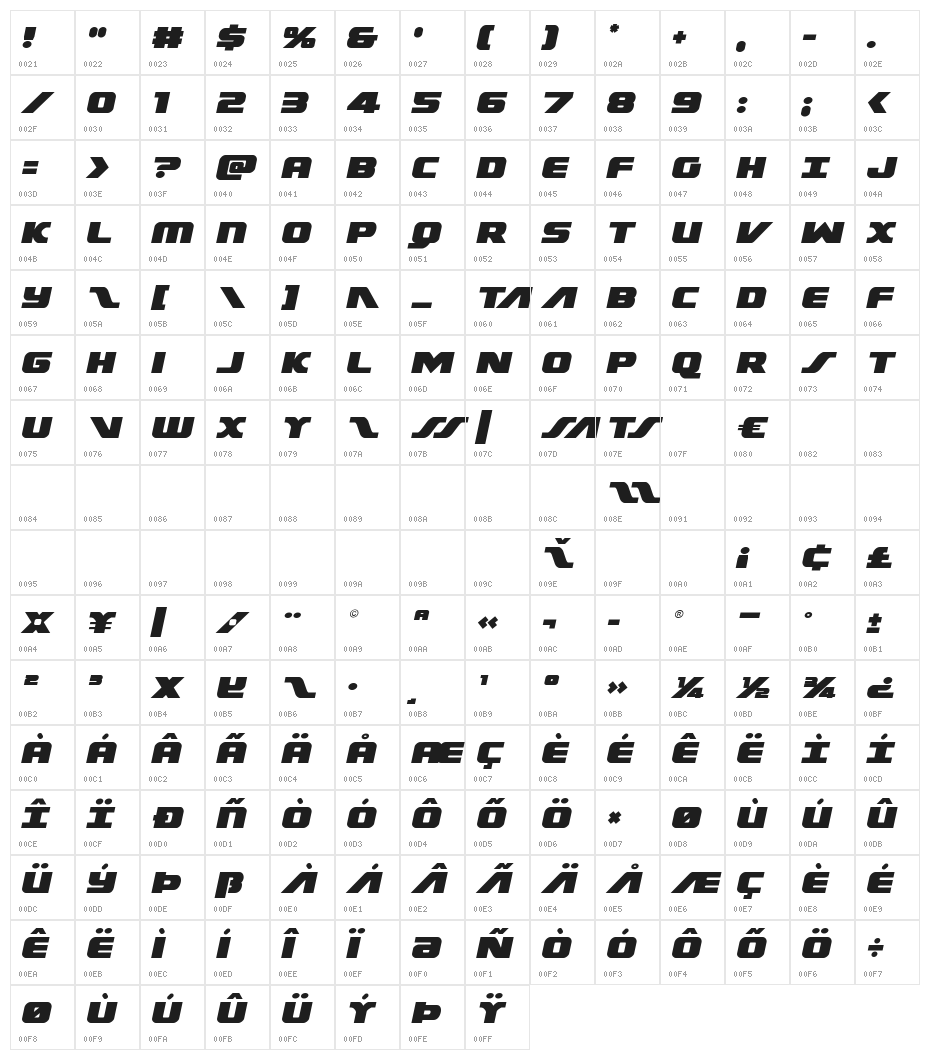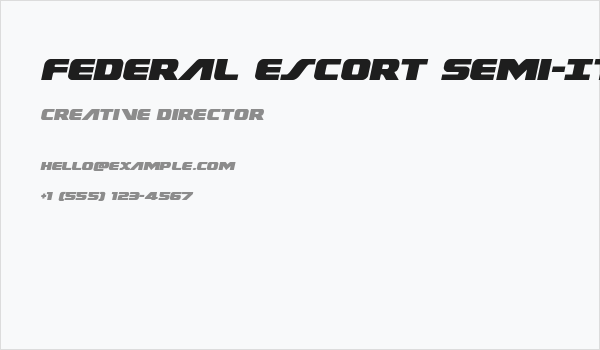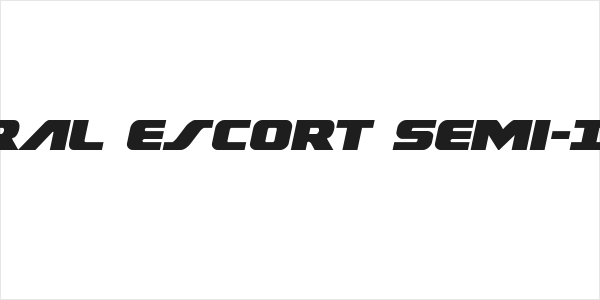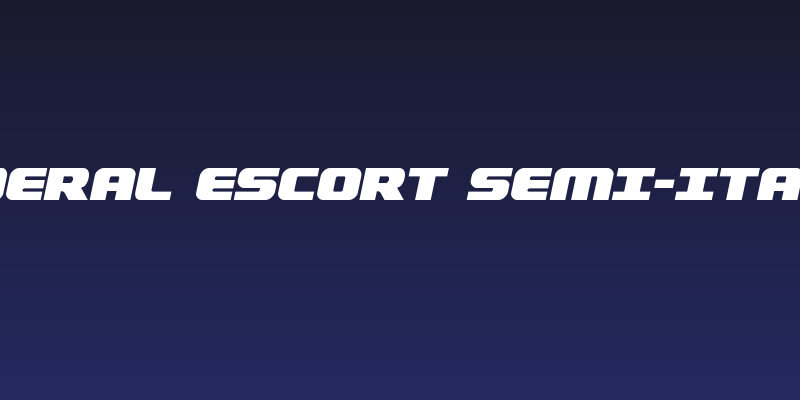
Federal Escort Semi-Italic Font
Federal Escort Semi-Italic Description
This font features a bold, semi-italic style with a futuristic and dynamic appearance. The characters are designed with sharp angles and a slight forward slant, giving a sense of motion and speed. The uppercase letters are particularly striking, with wide, blocky forms that convey strength and modernity. The lowercase letters maintain the same boldness, ensuring consistency across the typeface. Numbers and special characters are equally robust, making them suitable for impactful displays. The overall design is clean and geometric, with a focus on readability while maintaining a unique aesthetic.
| Proposed Projects | Ideal for use in technology branding, sports team logos, automotive advertisements, and video game titles. |